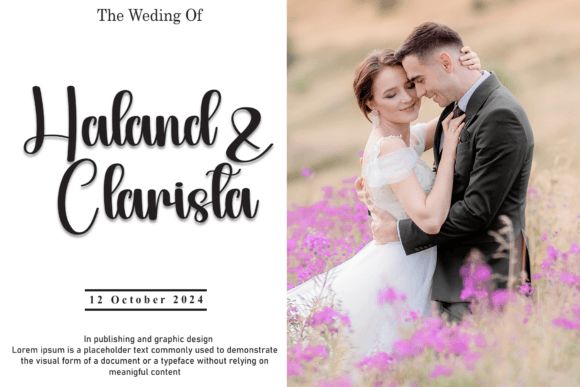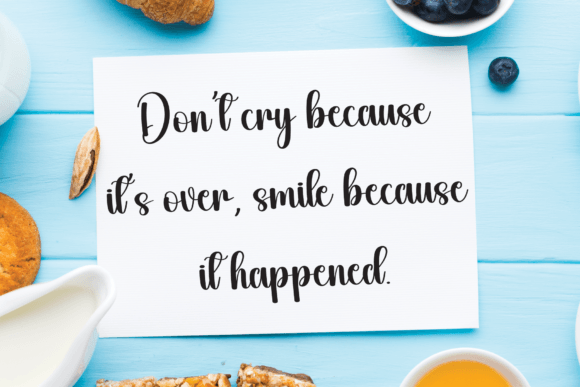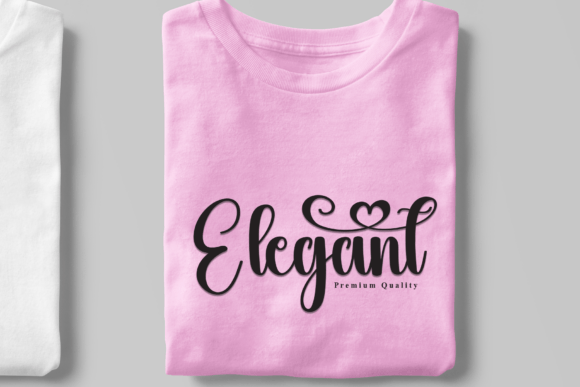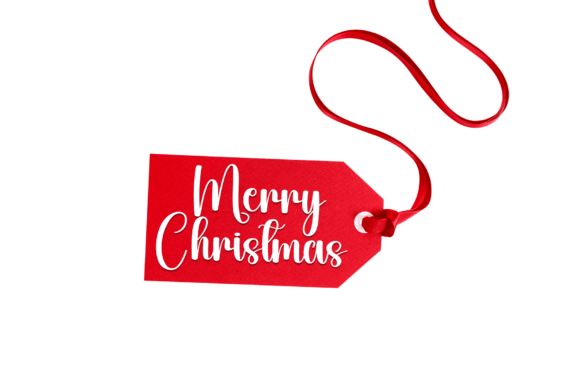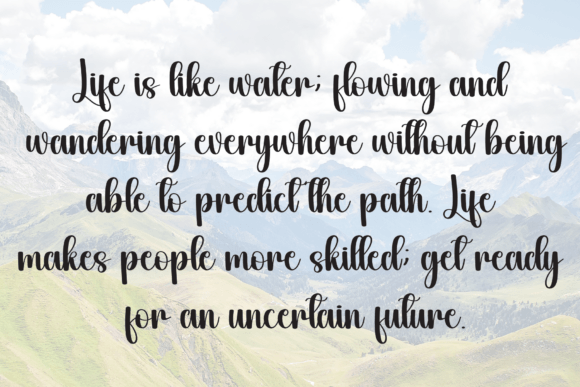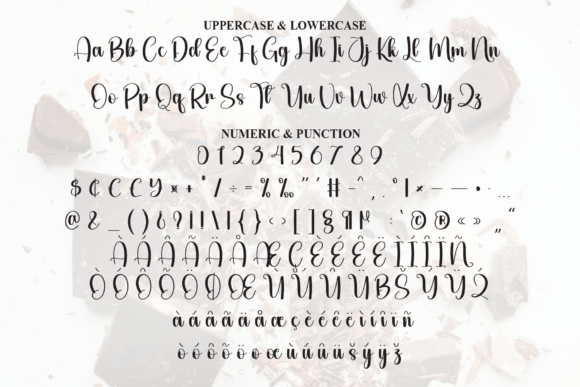
Introduction to Simple Chocolate Font
Do you remember that moment when you stumbled upon the perfect font for your design project? It’s like finding a missing puzzle piece – everything falls into place, and your creative vision becomes a reality. For designers, discovering the right font can be a game-changer, elevating their project from ordinary to extraordinary. Today, we’re excited to introduce you to a stunning addition to your design resource library: the Simple Chocolate Font.
With its elegant and charming handwritten script, Simple Chocolate Font is perfect for invitations, logos, and branding. Its flowing, graceful curves bring a personal and sophisticated touch to any design, making it an ideal choice for creative projects. Whether you’re working on a high-quality logo or a free download design, Simple Chocolate Font’s delicate strokes will add warmth and creativity to your work.
Key Features of Simple Chocolate Font
- Unique, hand-drawn design with a simple yet elegant aesthetic, perfect for adding a touch of whimsy to your work
- Perfect for use in logos, branding materials, and other creative projects where a distinctive, high-quality font is required
Honest Review: Simple Chocolate Font
I recently stumbled upon the Simple Chocolate Font, and I must say it’s a delightful addition to any design project. With its high-quality design and transparent background, it’s perfect for creative projects that require a touch of elegance.
Here are some aspects that work well: ✨
- Unique and stylish design that adds a personal touch to any project
- May not be suitable for projects that require bold or dramatic text
- Not as versatile as some other fonts, but still great for creative projects
Overall, I’m impressed with the Simple Chocolate Font. It’s a great resource for designers who want to add a touch of sophistication to their projects. With its high-quality design and transparent background, it’s a must-have for any design enthusiast.
Tips for Getting the Most Out of Simple Chocolate Font
To get the most out of Simple Chocolate Font, use it in combination with other design elements to create visually appealing graphics. Experiment with different font sizes, colors, and styles to find the perfect look for your creative project. Also, make sure to use high-quality images and graphics to complement the font.
Common Use Cases for Simple Chocolate Font
Simple Chocolate Font is perfect for creating invitations, posters, and social media graphics. It’s also great for adding a personal touch to your blog or website. With its unique and playful design, Simple Chocolate Font is sure to add a creative twist to your design project.
What is the recommended usage for the Simple Chocolate Font?
The Simple Chocolate Font is a versatile font that can be used in various creative projects, such as logos, typography, and graphics. It is ideal for use in digital design projects, such as websites, social media, and mobile apps. You can also use it in print design projects, such as business cards, brochures, and posters.